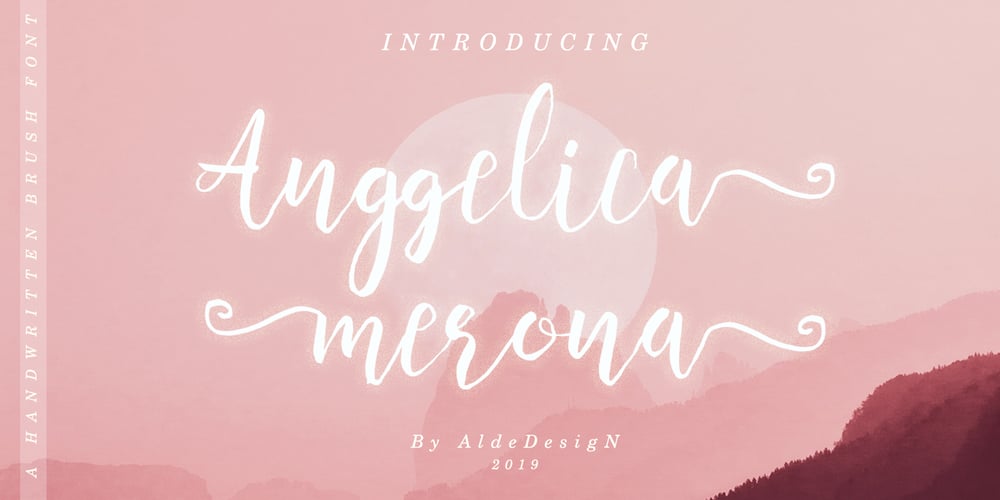
Anggelica Merona
Anggelica Merona font
Anggelica Merona Font Family was designed by Alde Saputro and published by Aldedesign. Anggelica Merona contains 1 styles and family package options. Introducing Anggelica Merona is a heavenly and light handwritten font with amazing characters. It will put a romantic spin on any design idea. This is a font which has a unique hand lettering brush style and it looks naturally handmade.This font is best used for your design project that has the concept of fun, girly, romantic and elegant. Can also be applied to the design of a logotype, header website, wedding logo, romantic design, make some lettering a quote, t-shirt design etc.